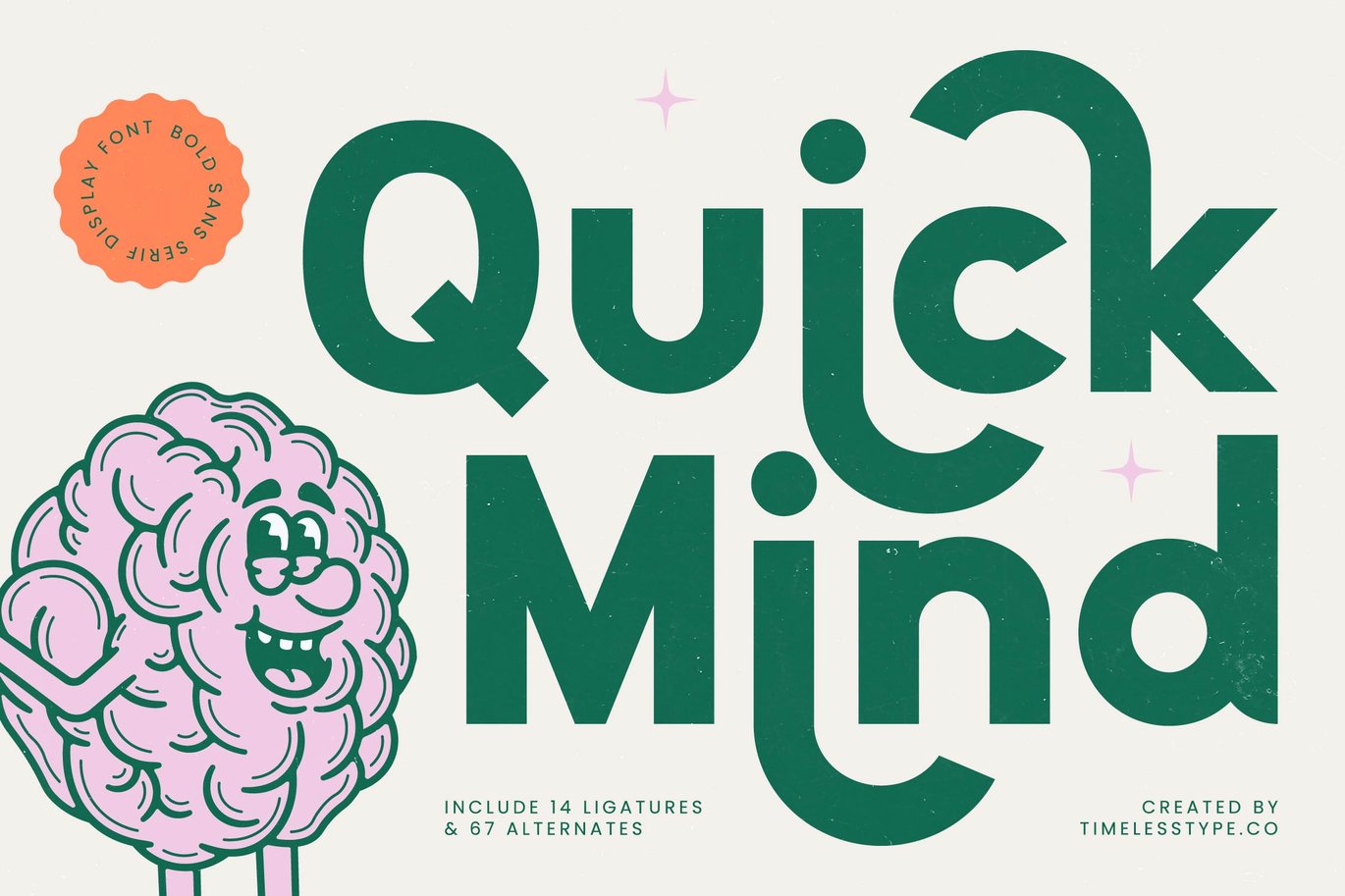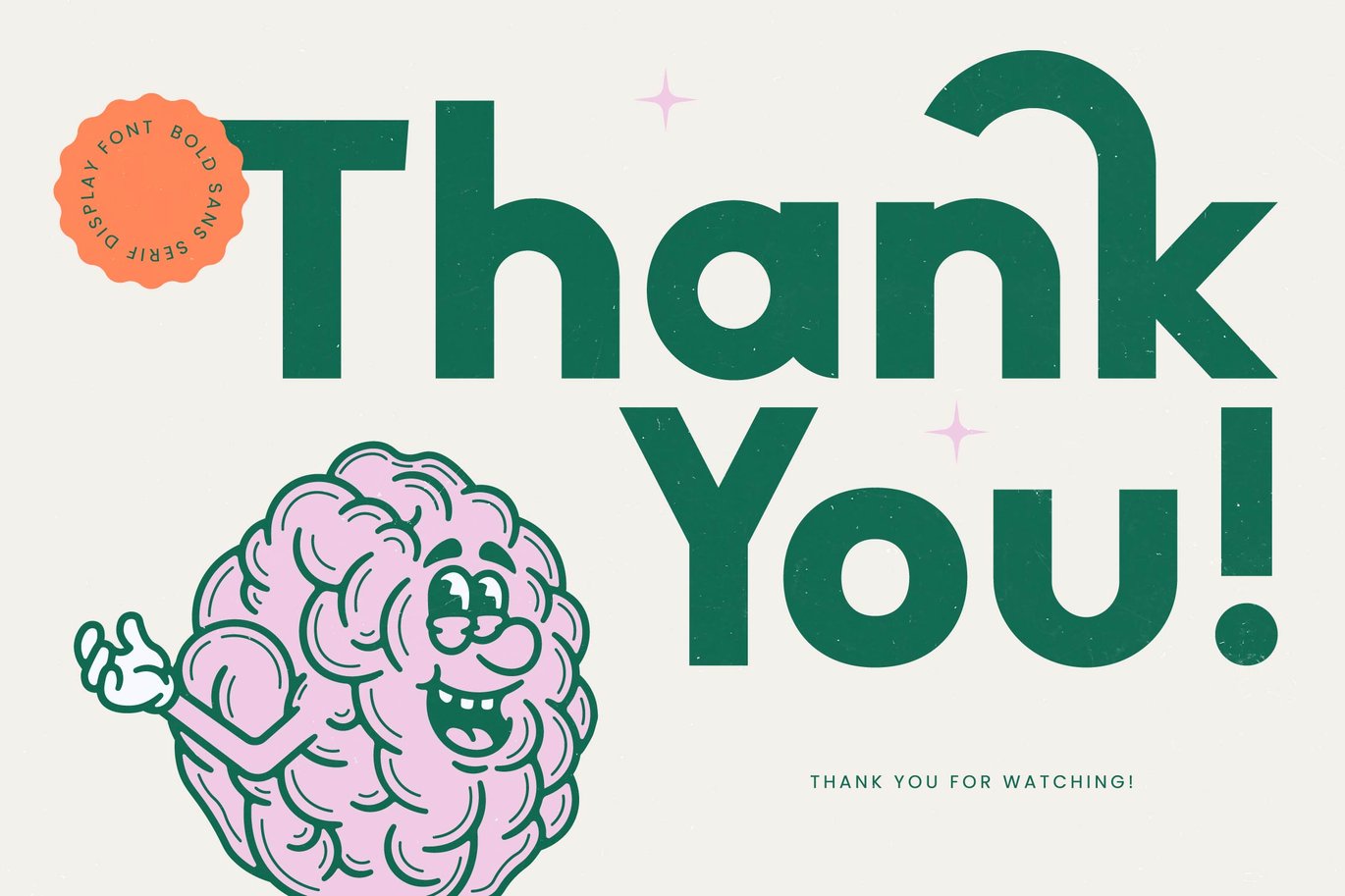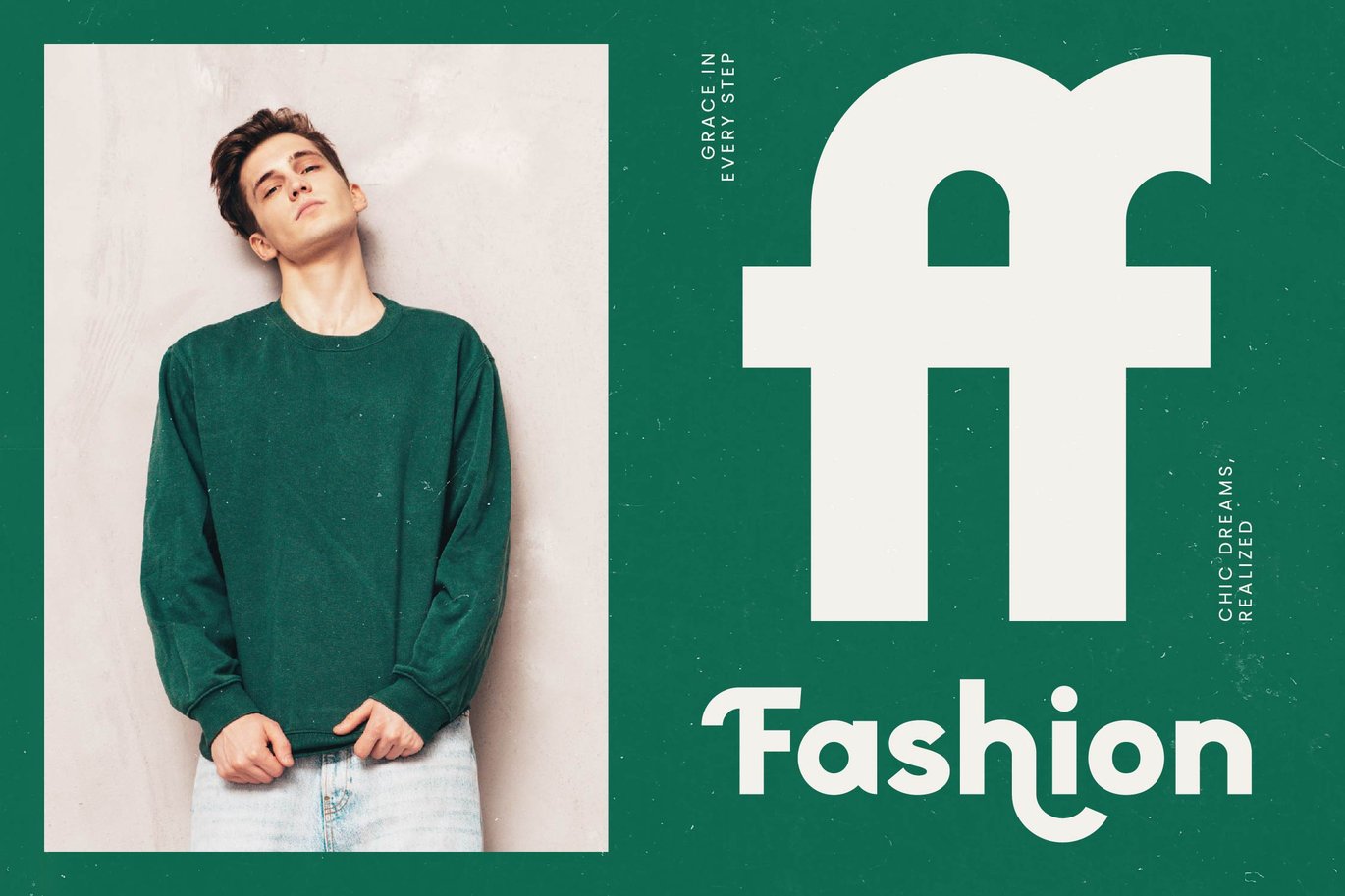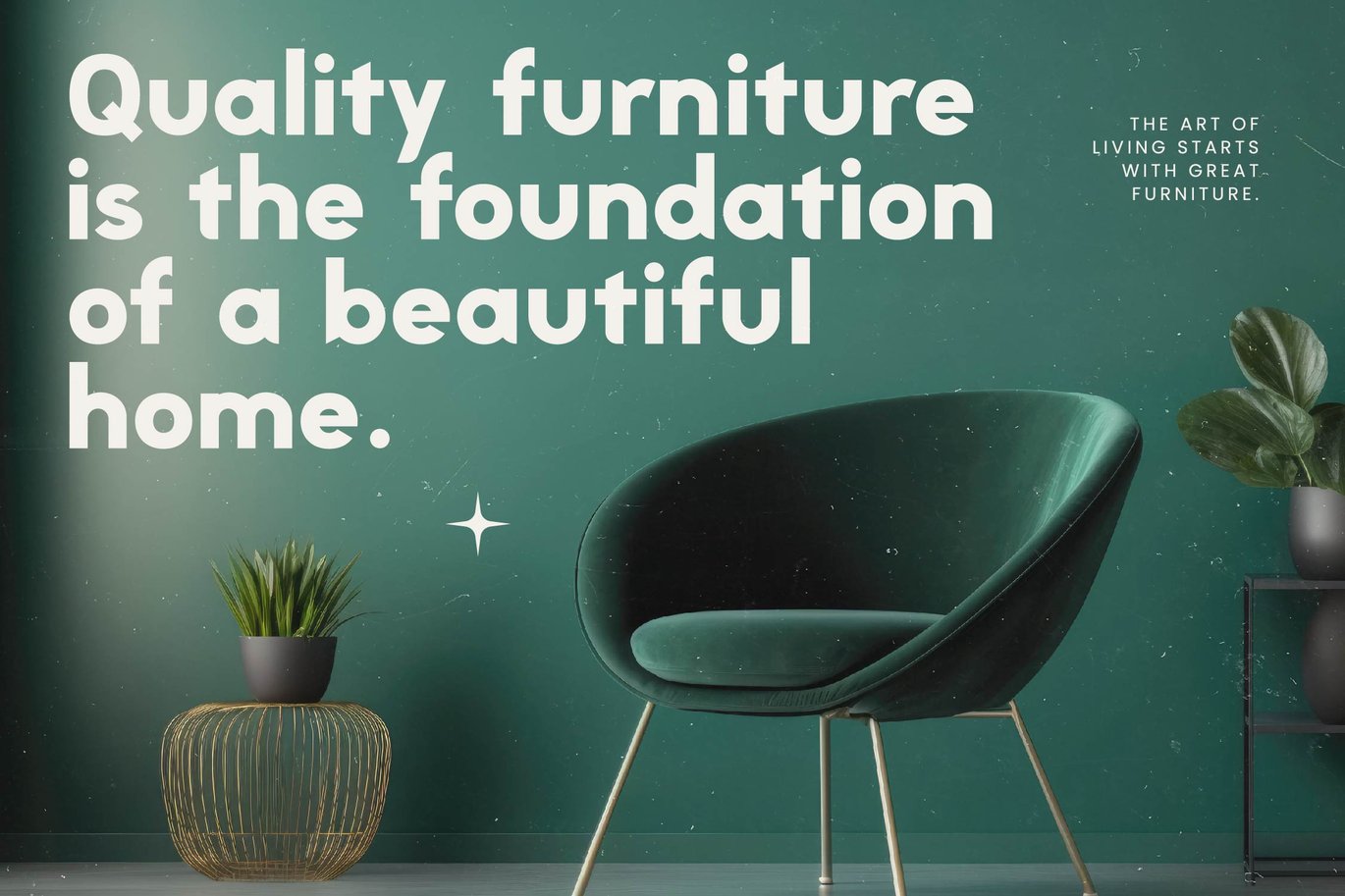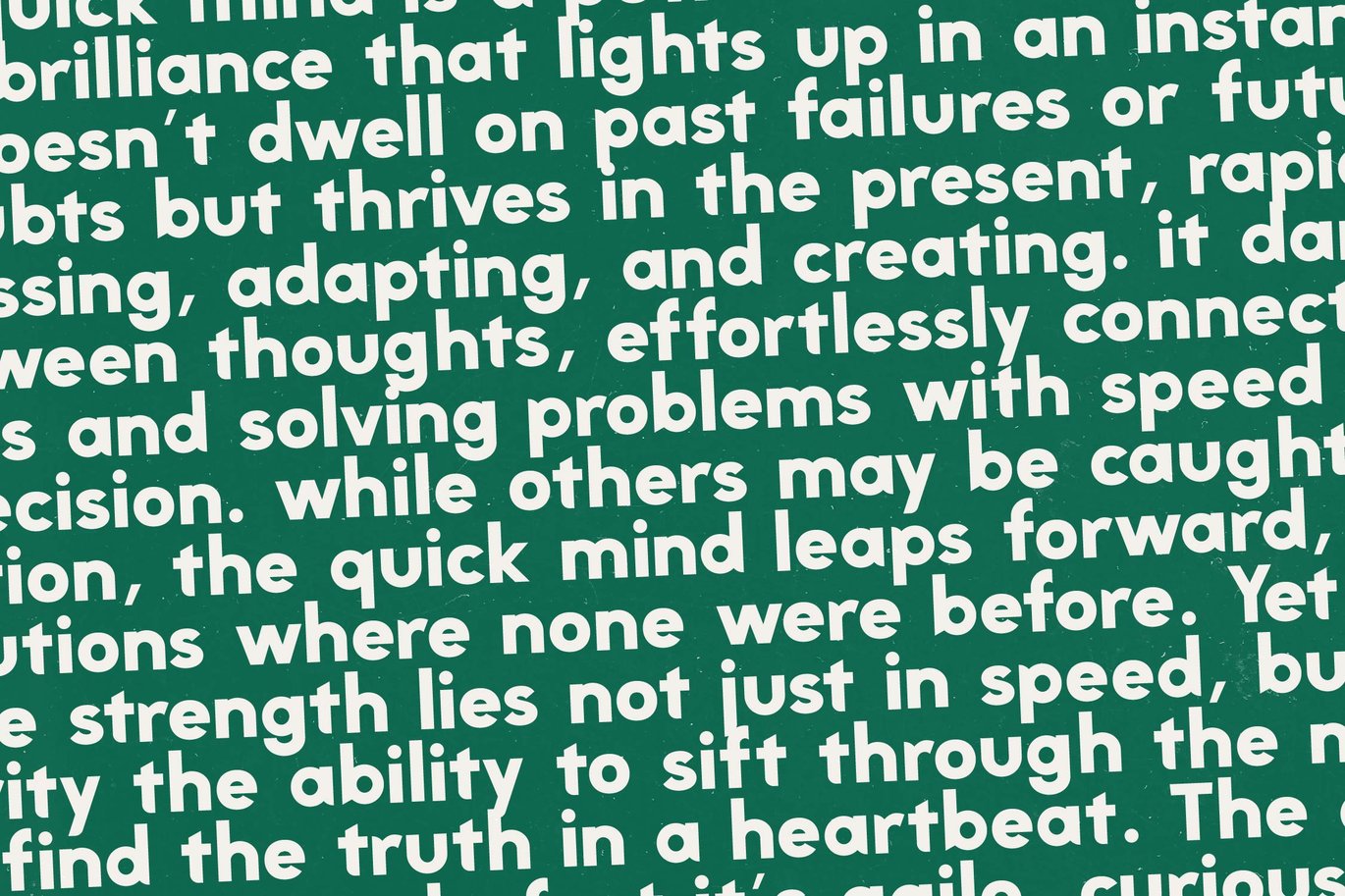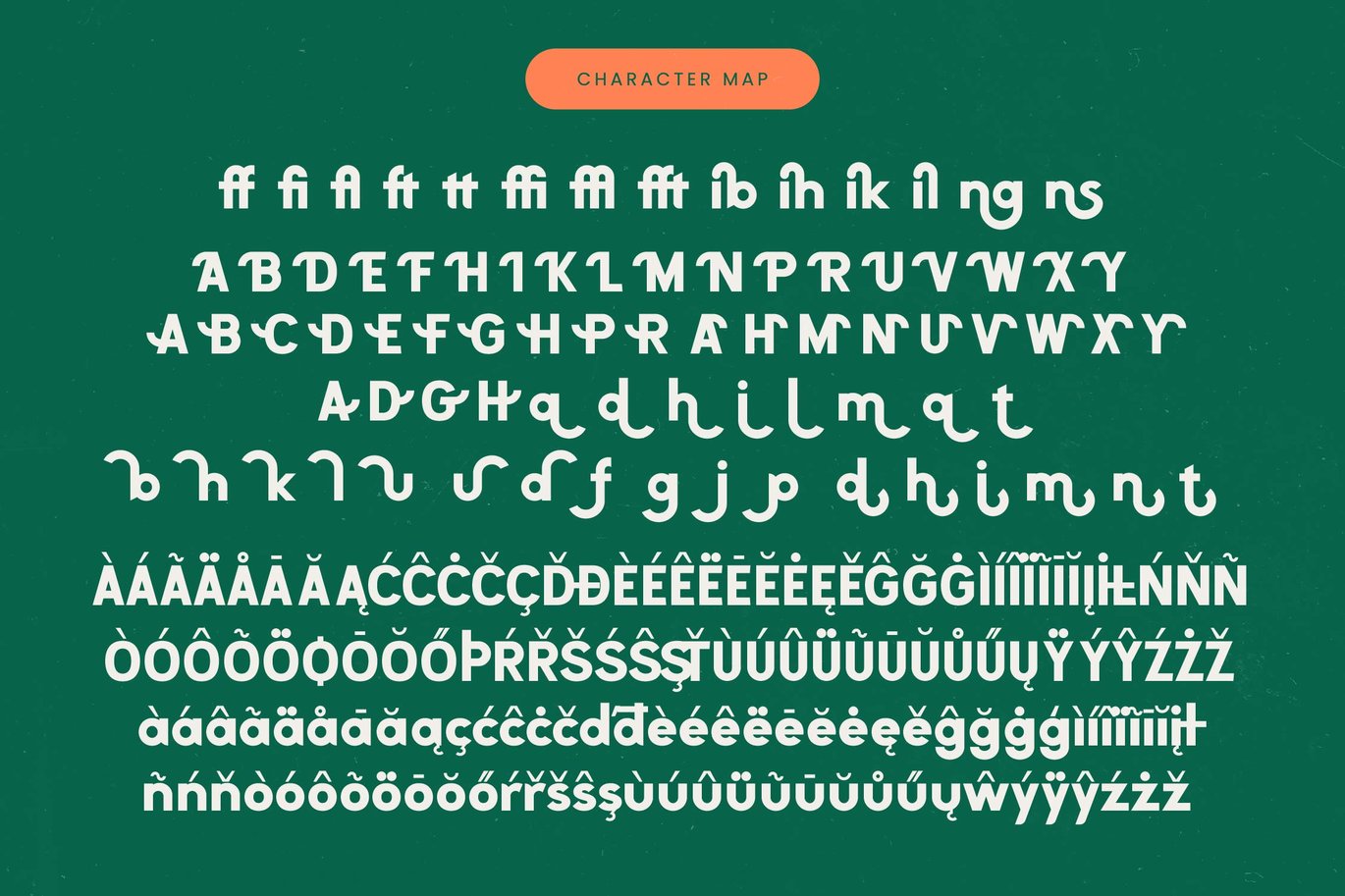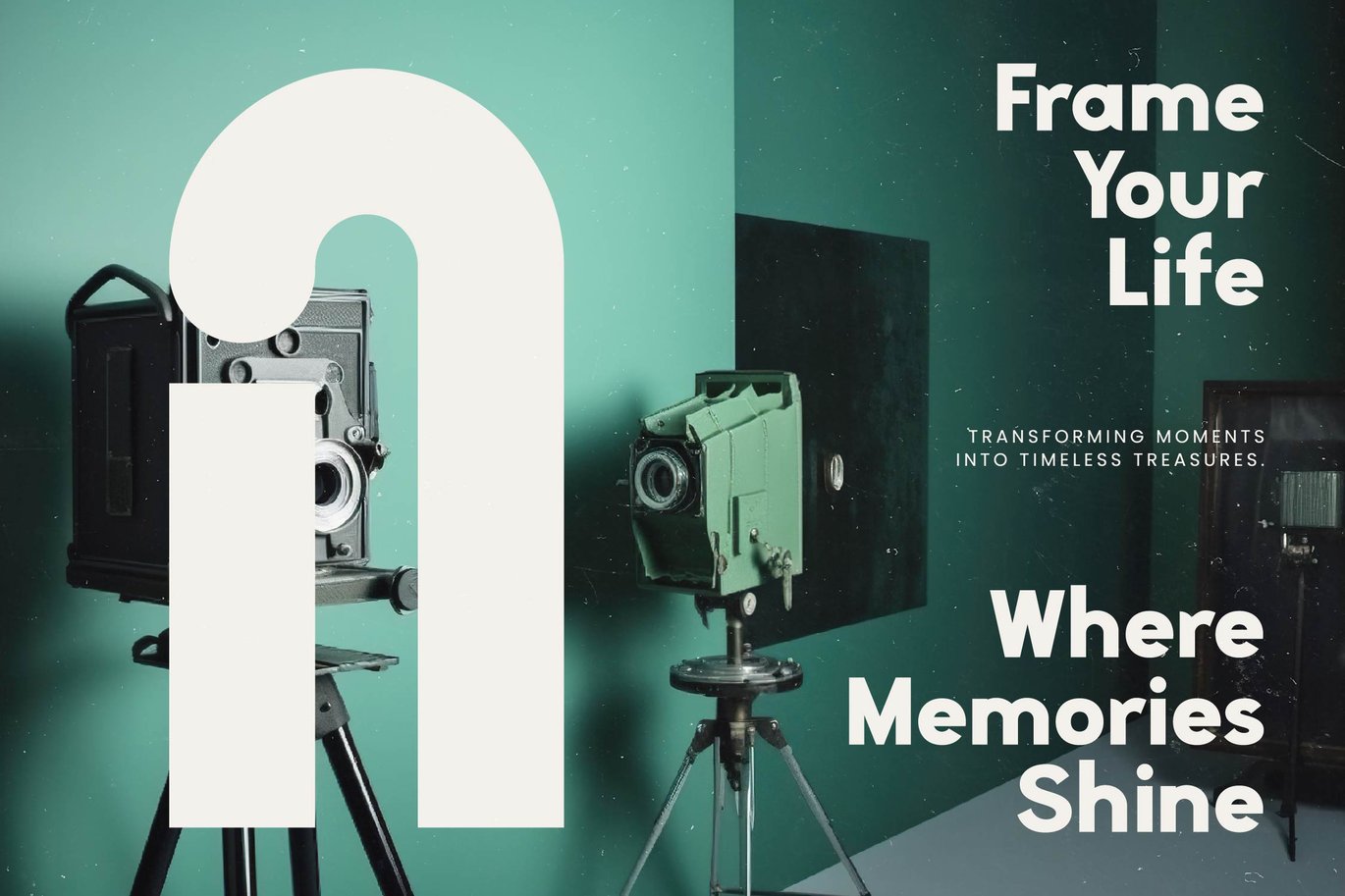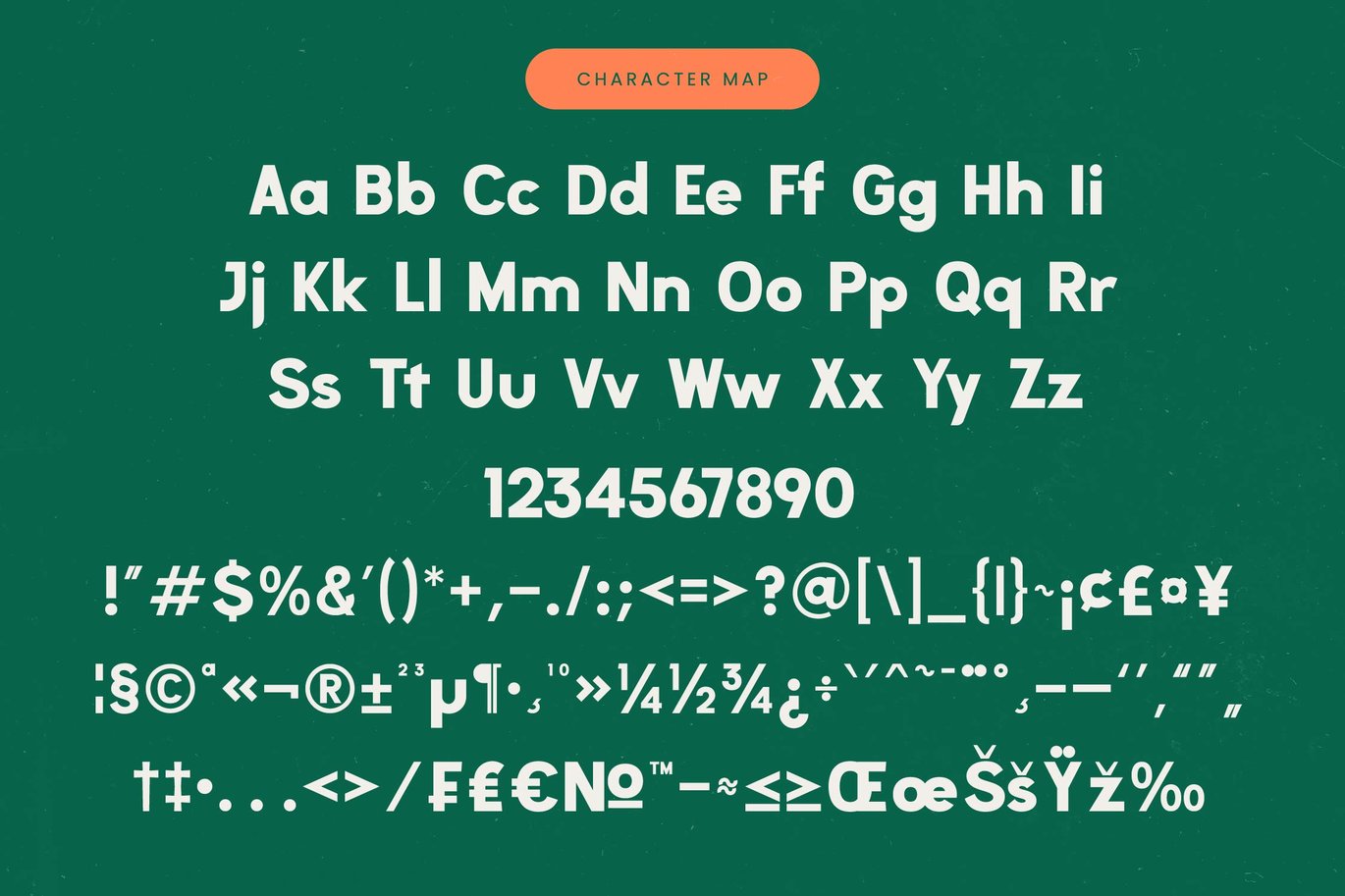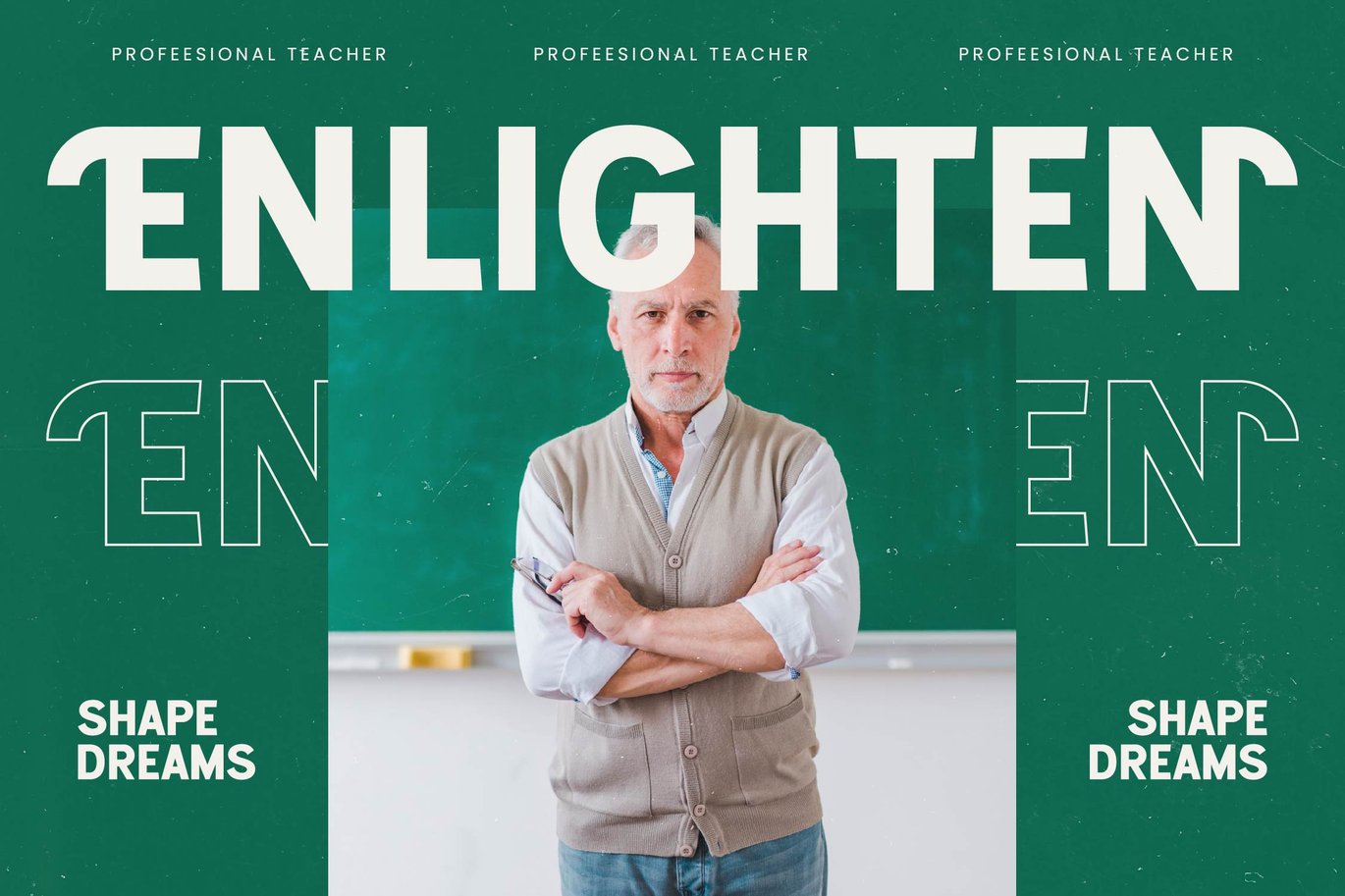
Quick Mind
Quick Mind is a bold sans display font that blends playful geometry with confident modern design. Featuring 14 ligatures and 67 alternates, this typeface brings personality, charm, and creativity to every project — perfect for posters, packaging, headlines, and branding that want to make a lively statement.
Its rounded edges and clean, futuristic structure make Quick Mind both fun and functional, ideal for designers seeking a balance between quirkiness and professionalism. Whether used for digital or print, this font instantly captures attention with its bold, upbeat vibe.